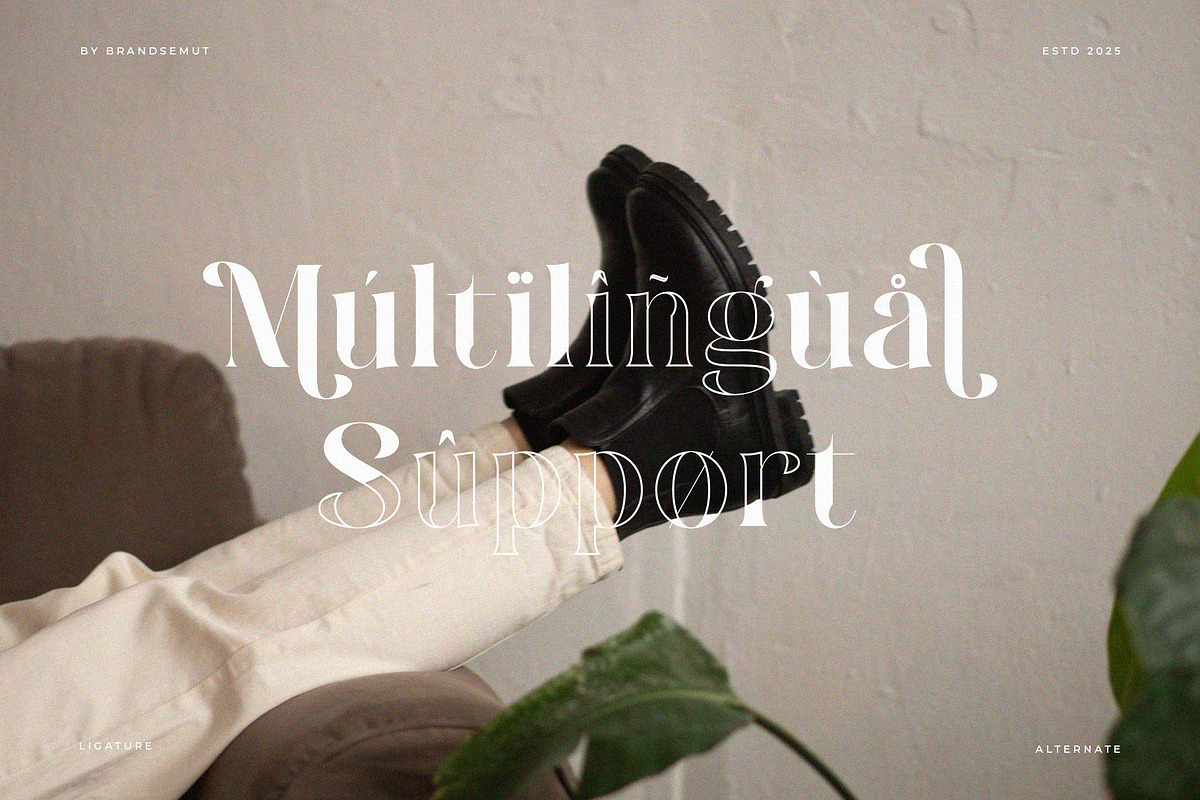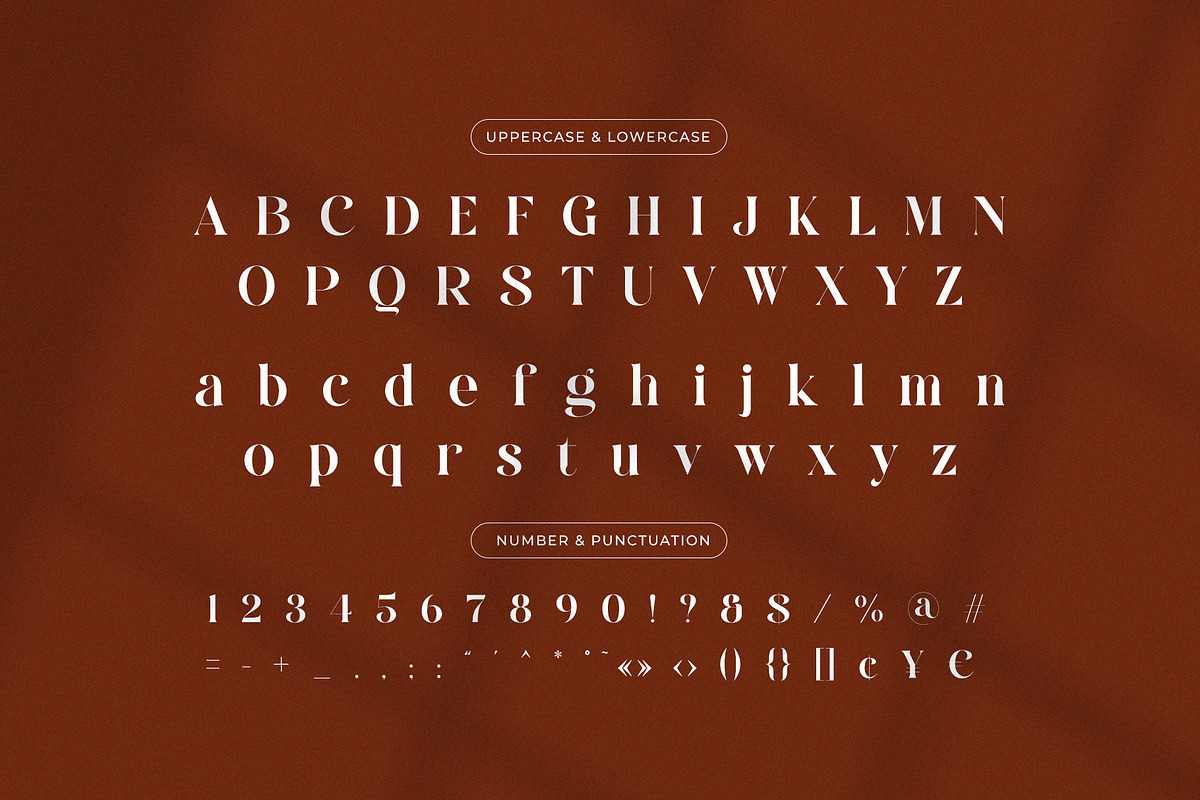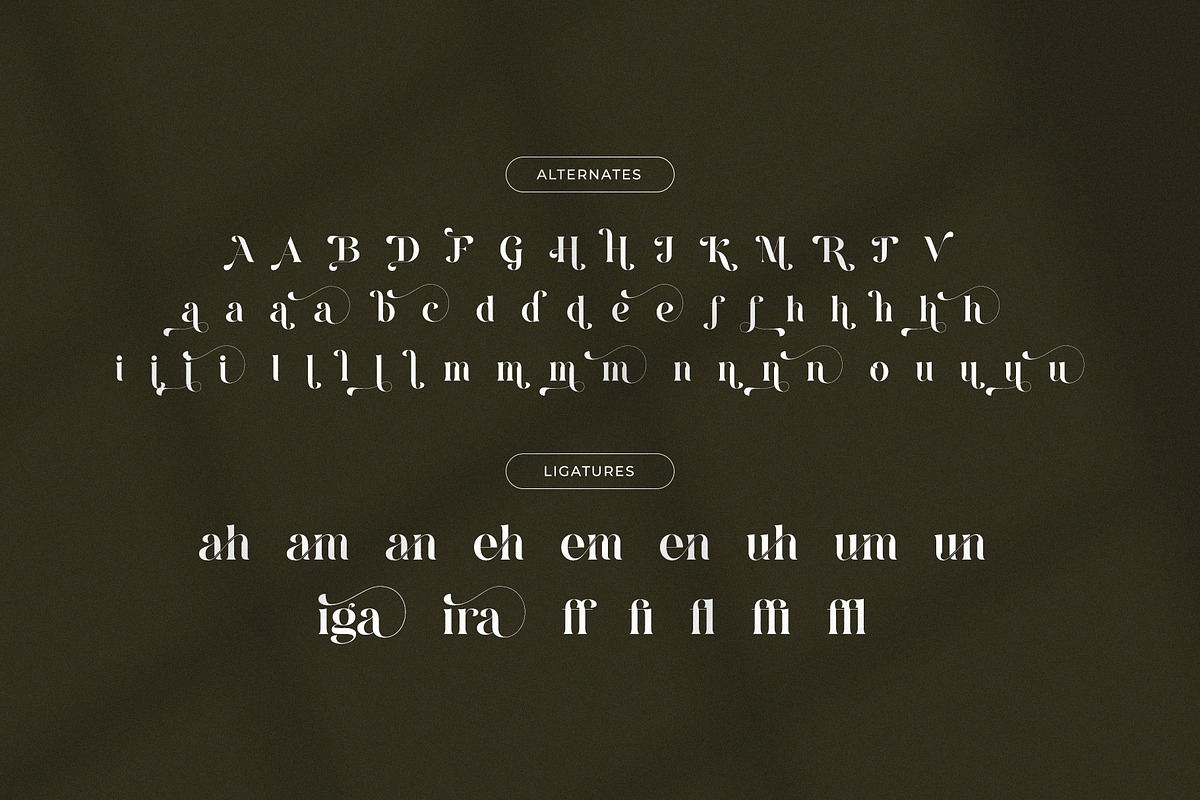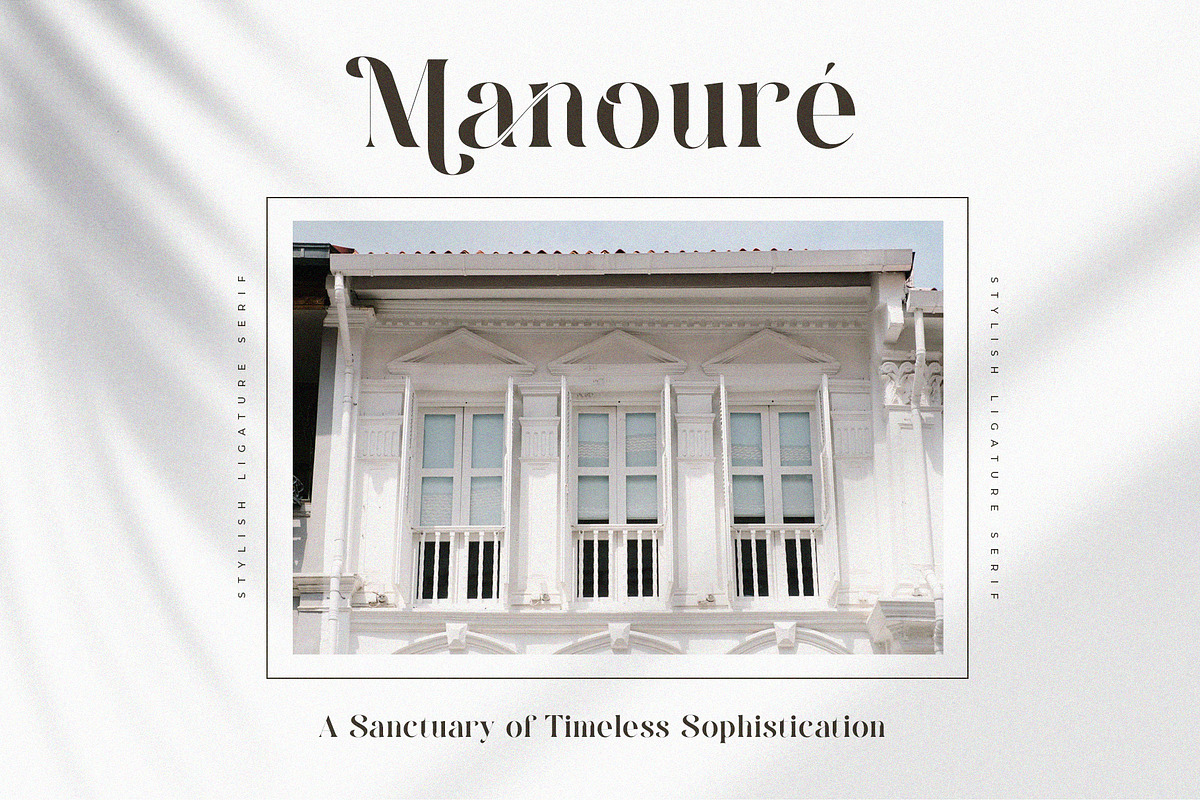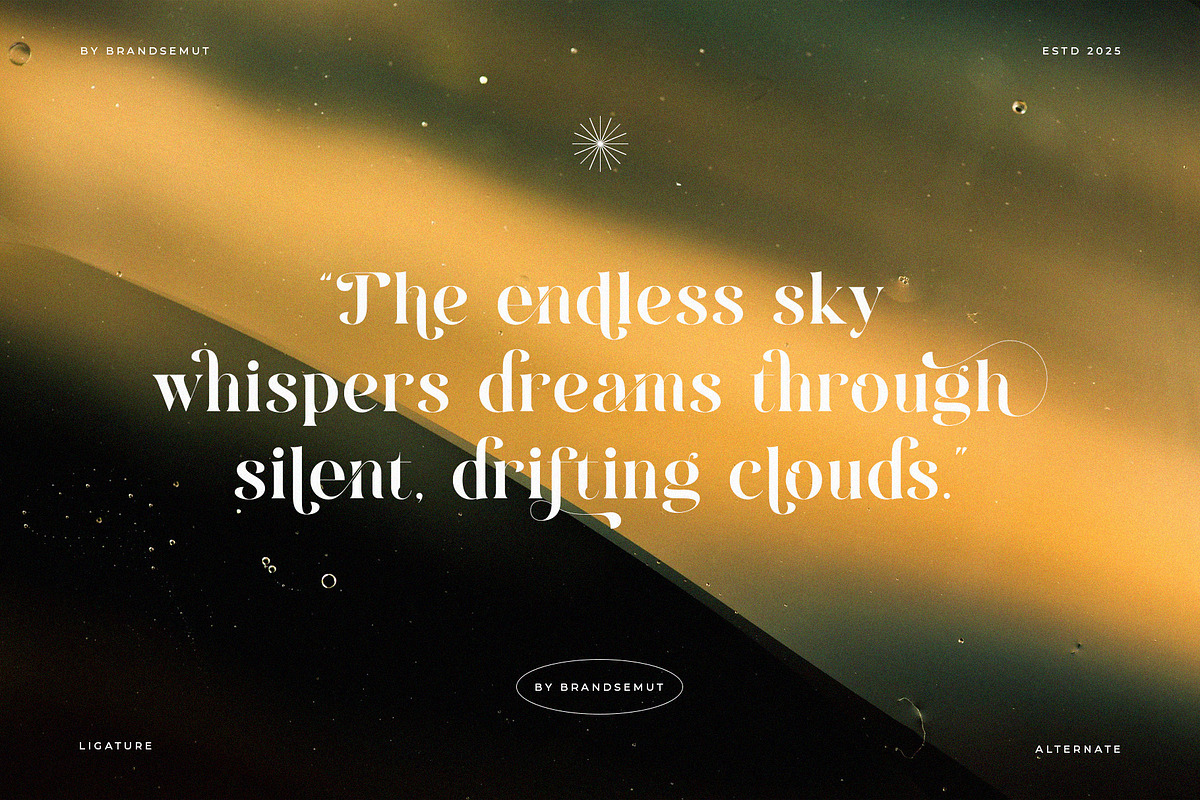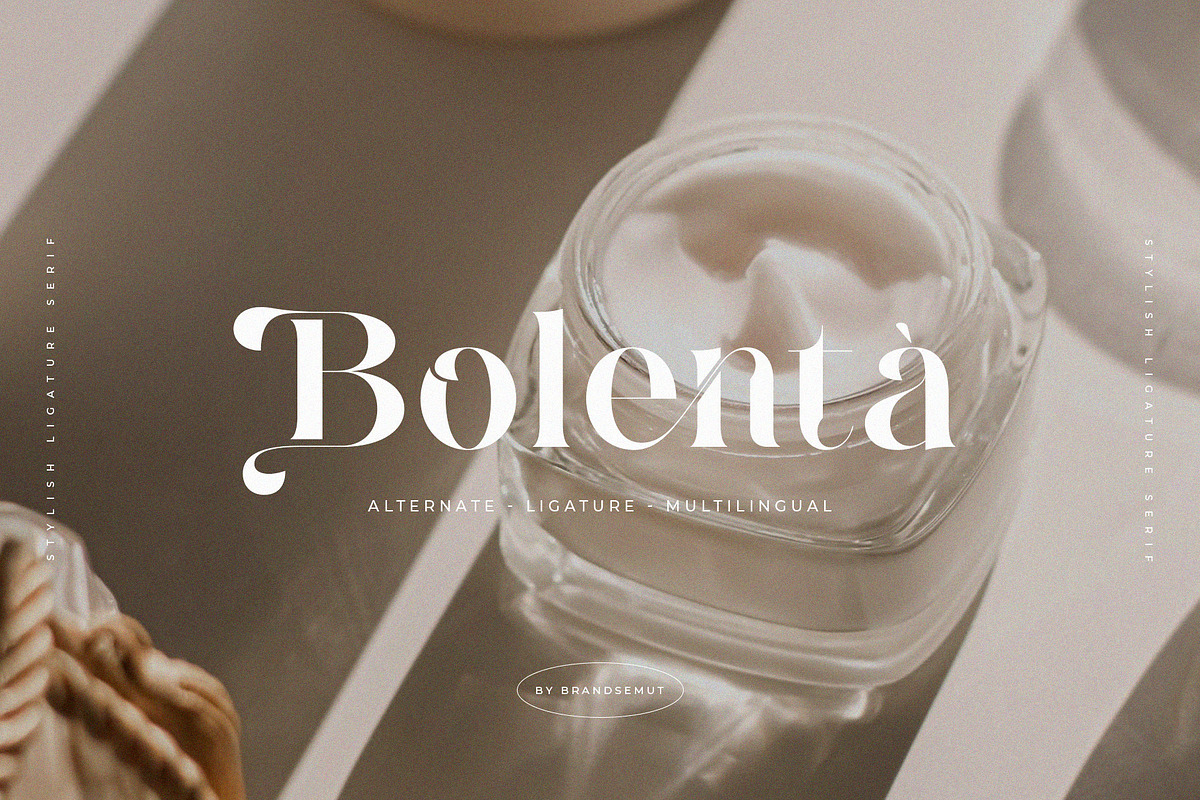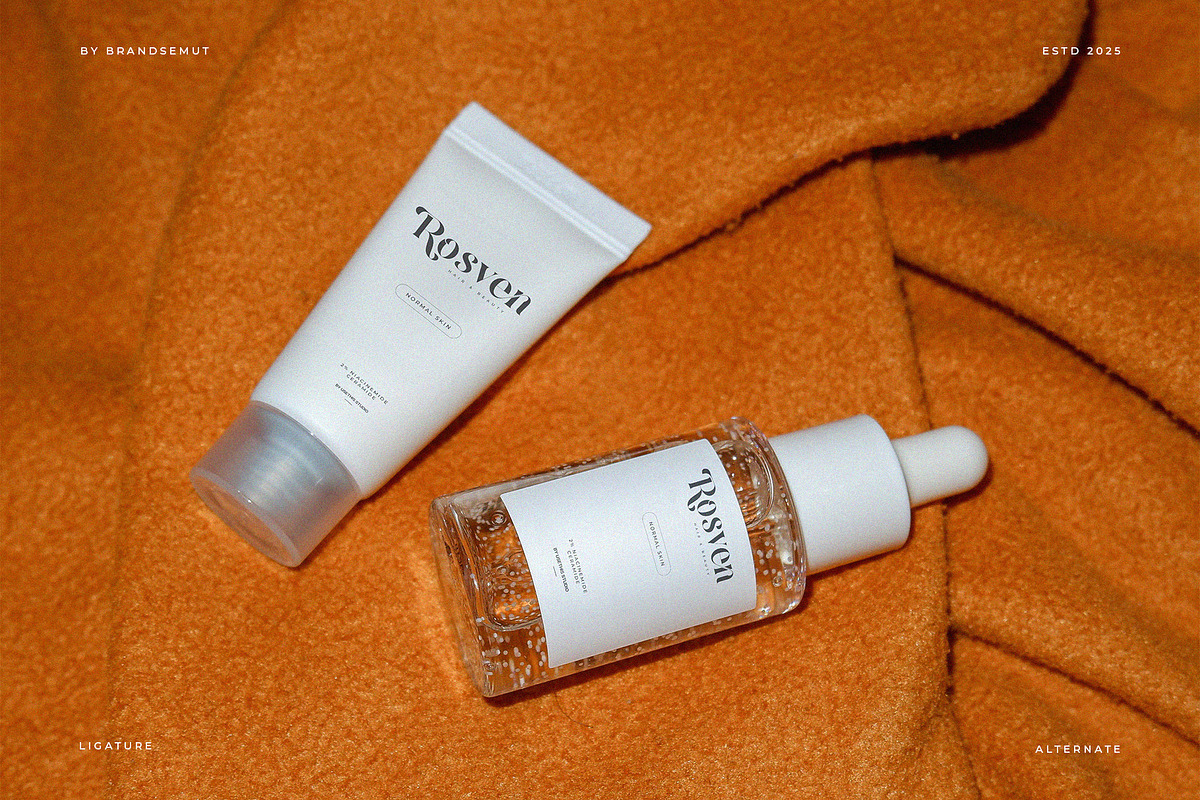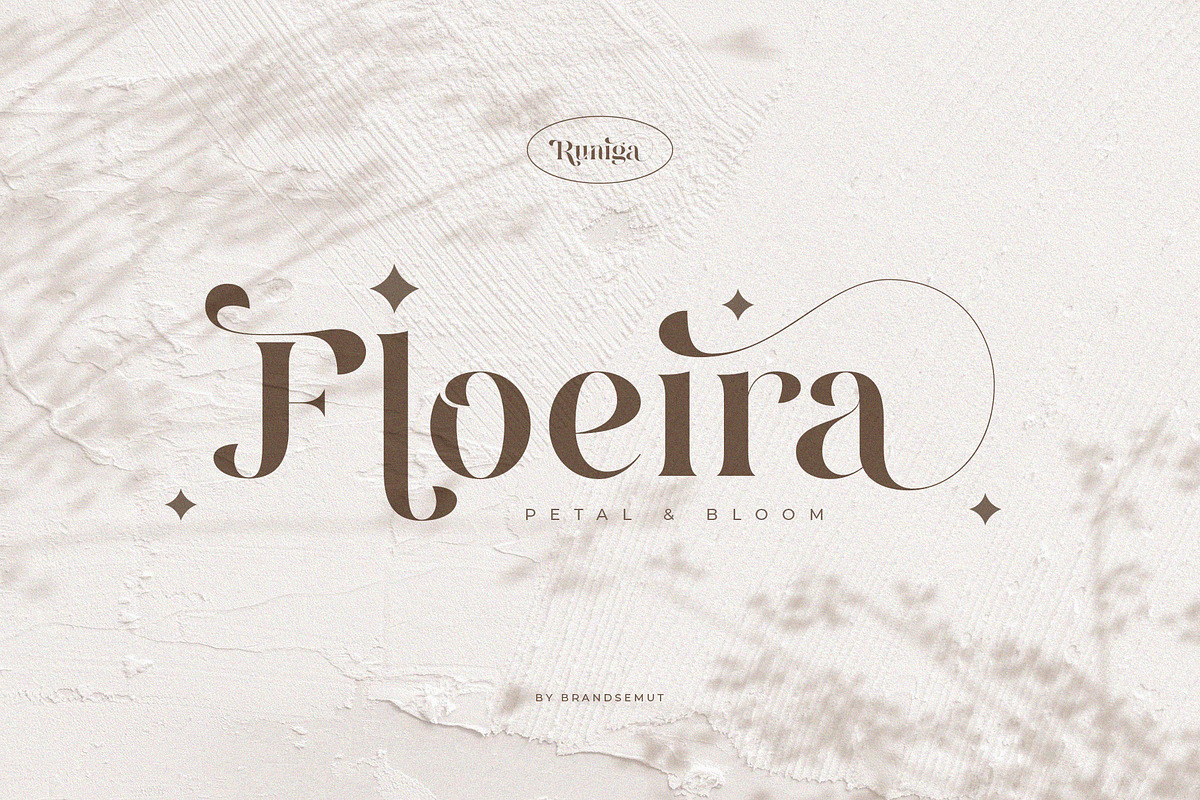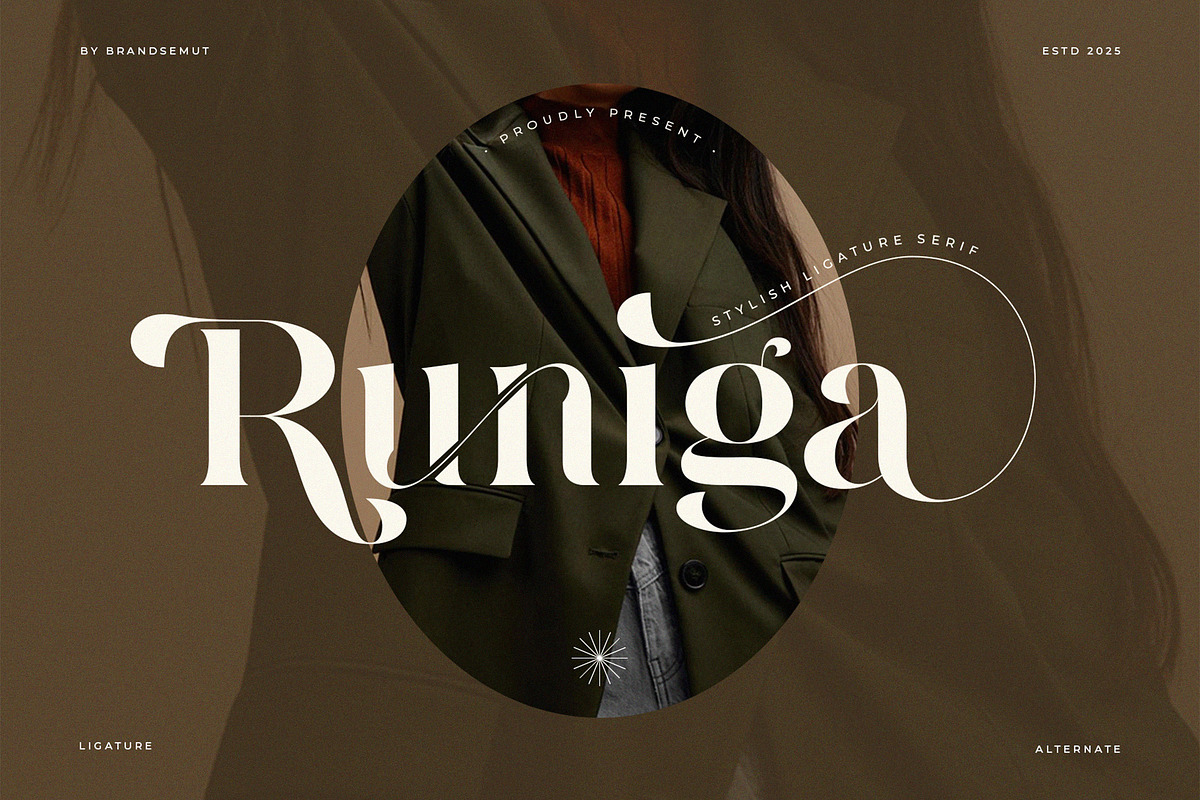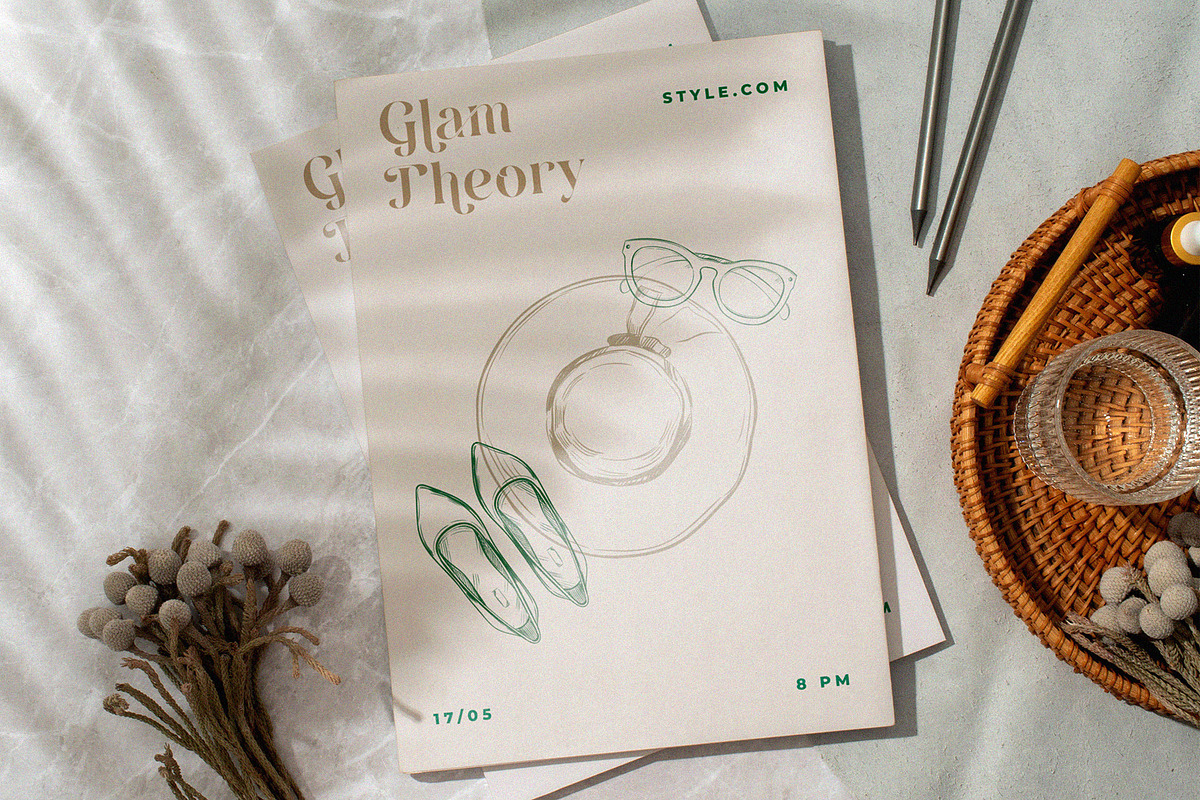
Runiga – Elegant Stylish Serif
Runiga – Elegant Stylish Ligature Serif Font for Branding & Editorial Use
Runiga is a modern and stylish serif font designed with sophisticated ligatures and elegant curves, perfect for high-end branding, fashion editorials, wedding invitations, and luxury packaging. With a balance of classic and contemporary flair, Runiga features both uppercase and lowercase characters, alternate glyphs, and unique stylistic ligatures that elevate any design.
This font is ideal for designers seeking a refined serif with bold character, crafted to leave a lasting impression. Whether for logos, magazine titles, social media content, or elegant product packaging — Runiga adds a touch of timeless beauty.
- Stylish Ligatures
- Elegant & Minimal Display Style
- Perfect for Branding, Fashion, Editorials, Invitations